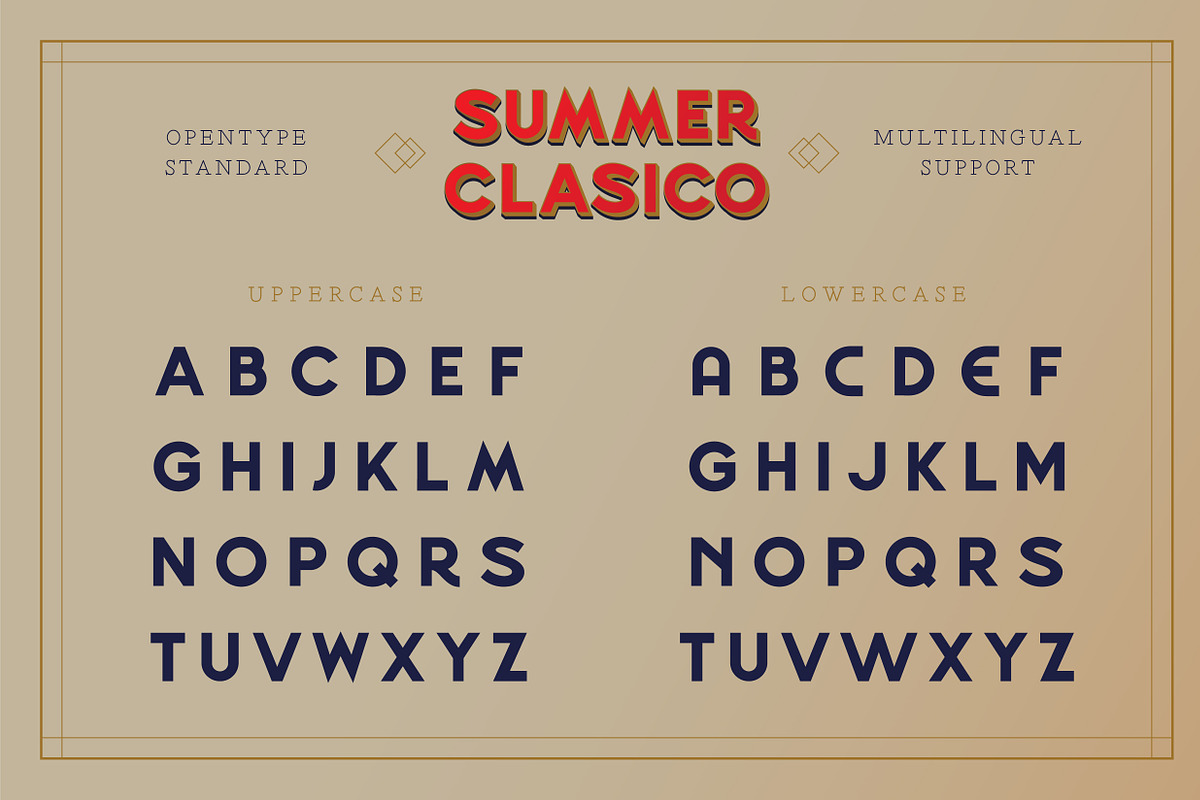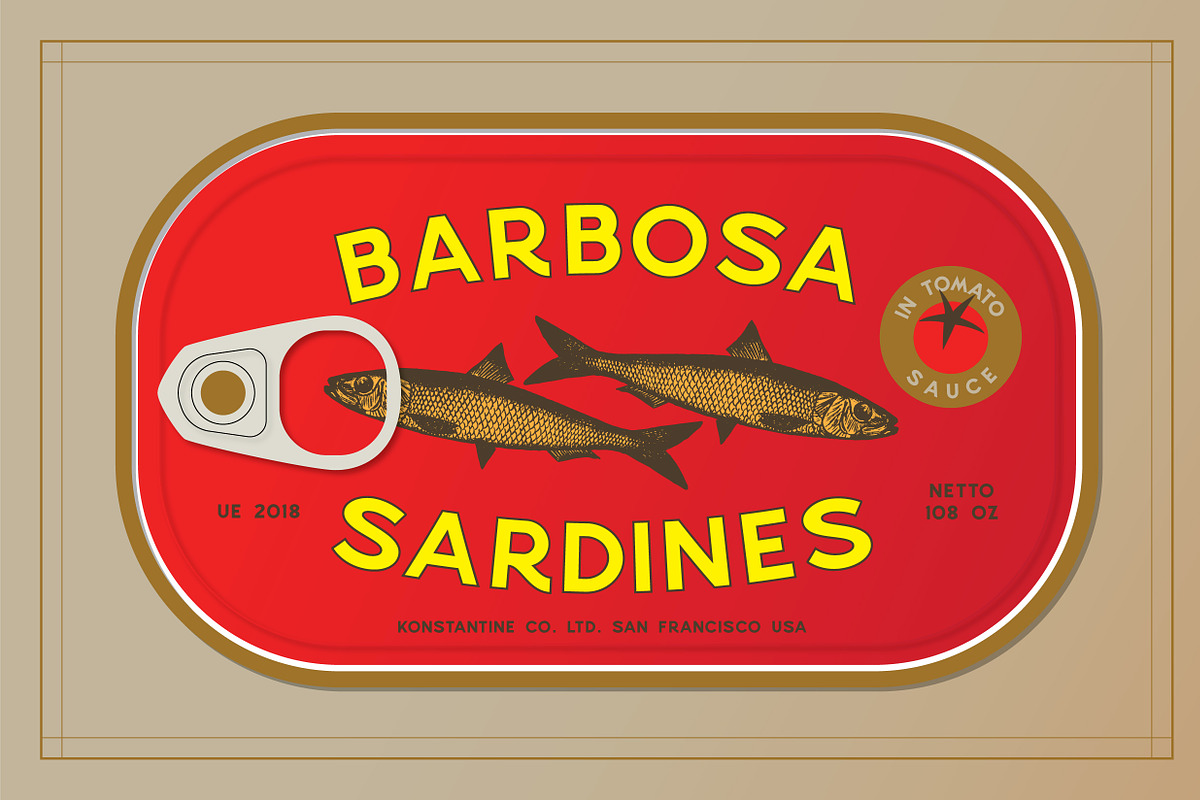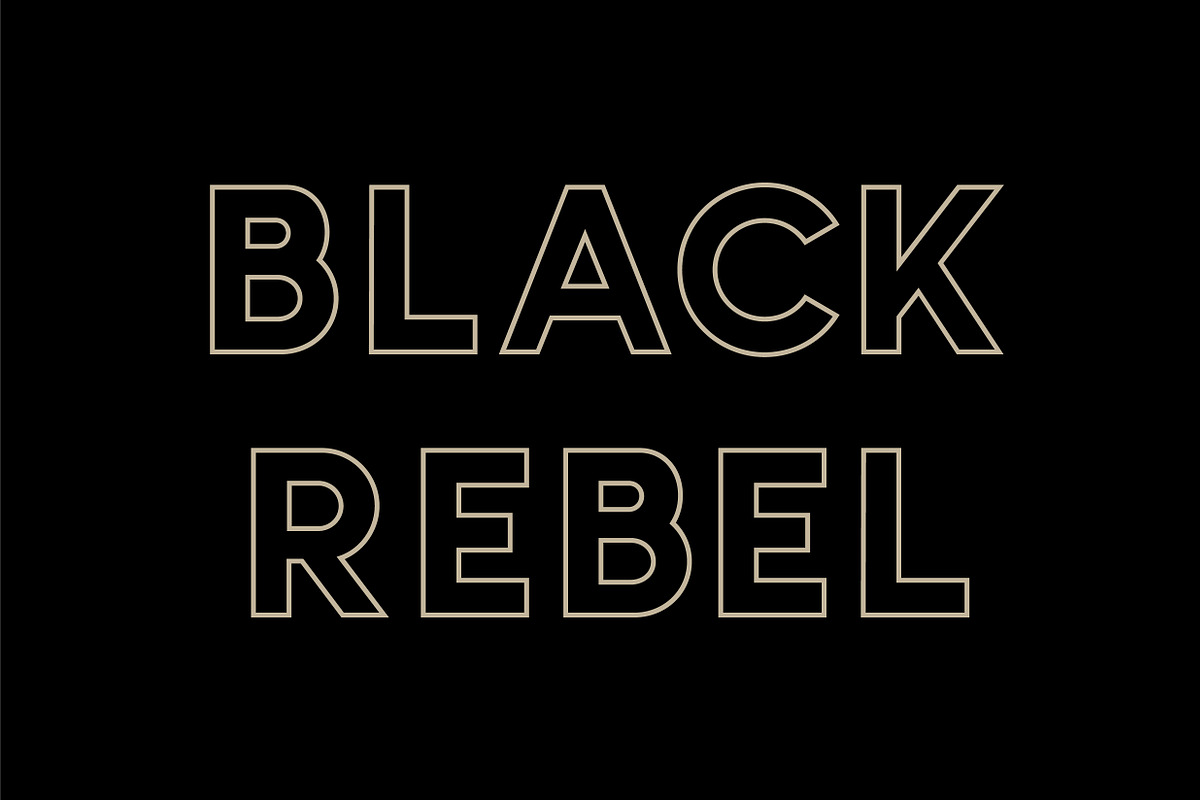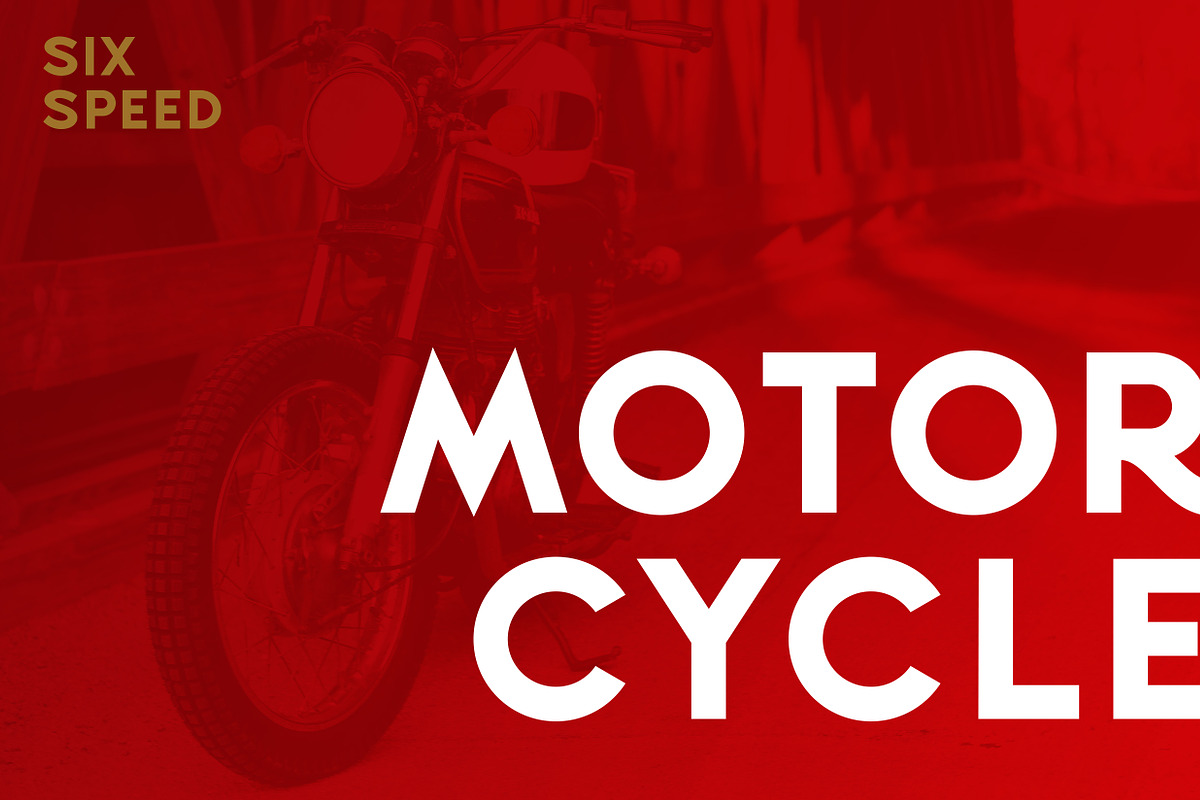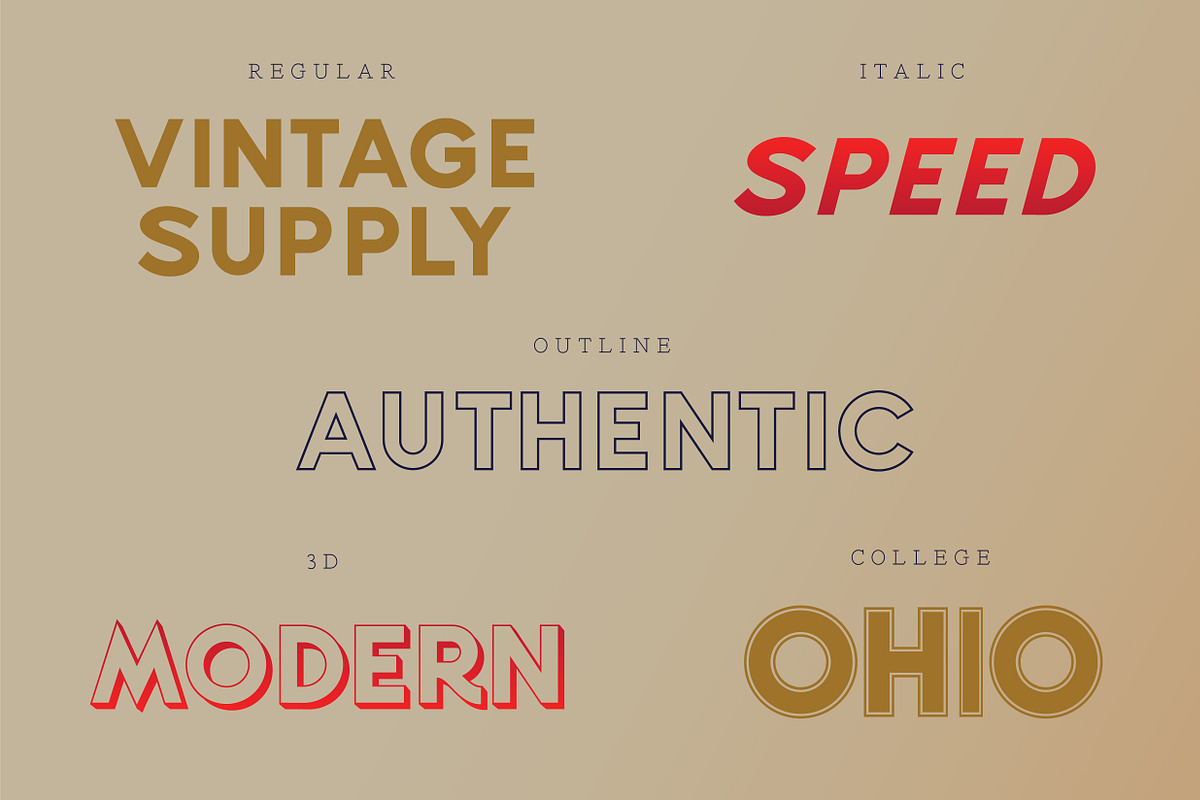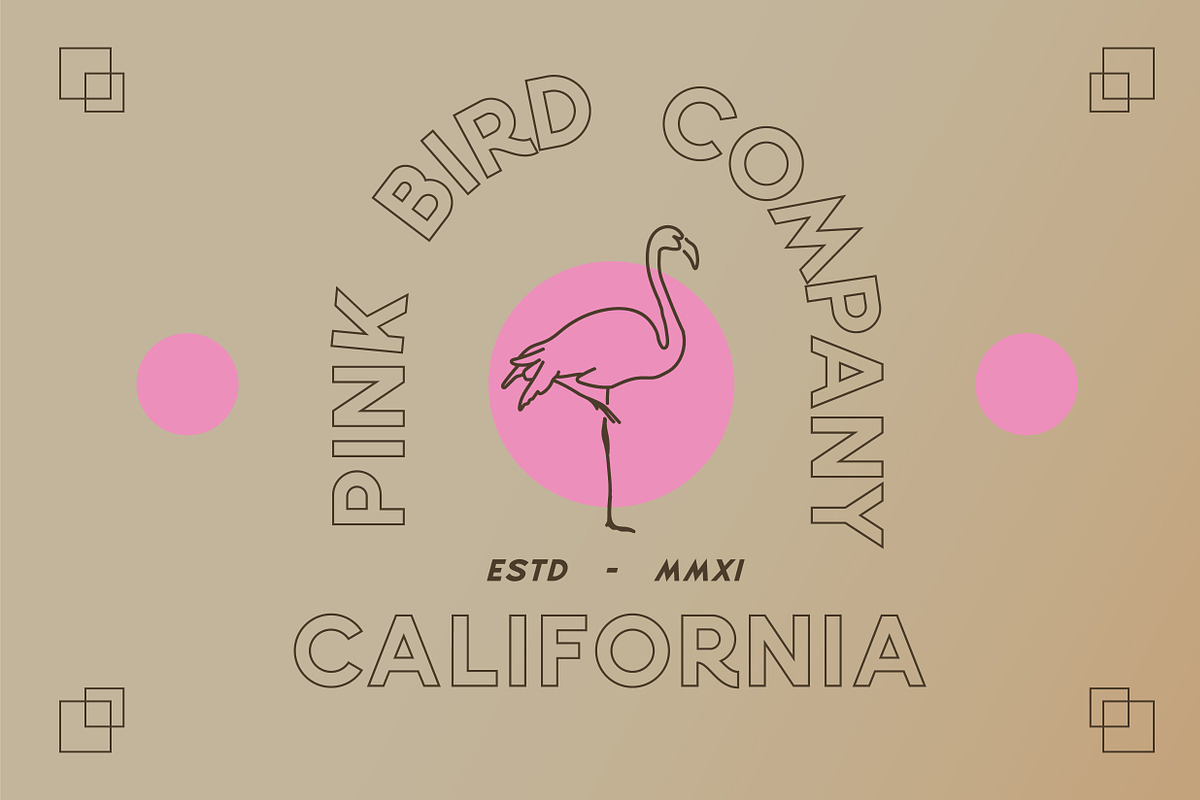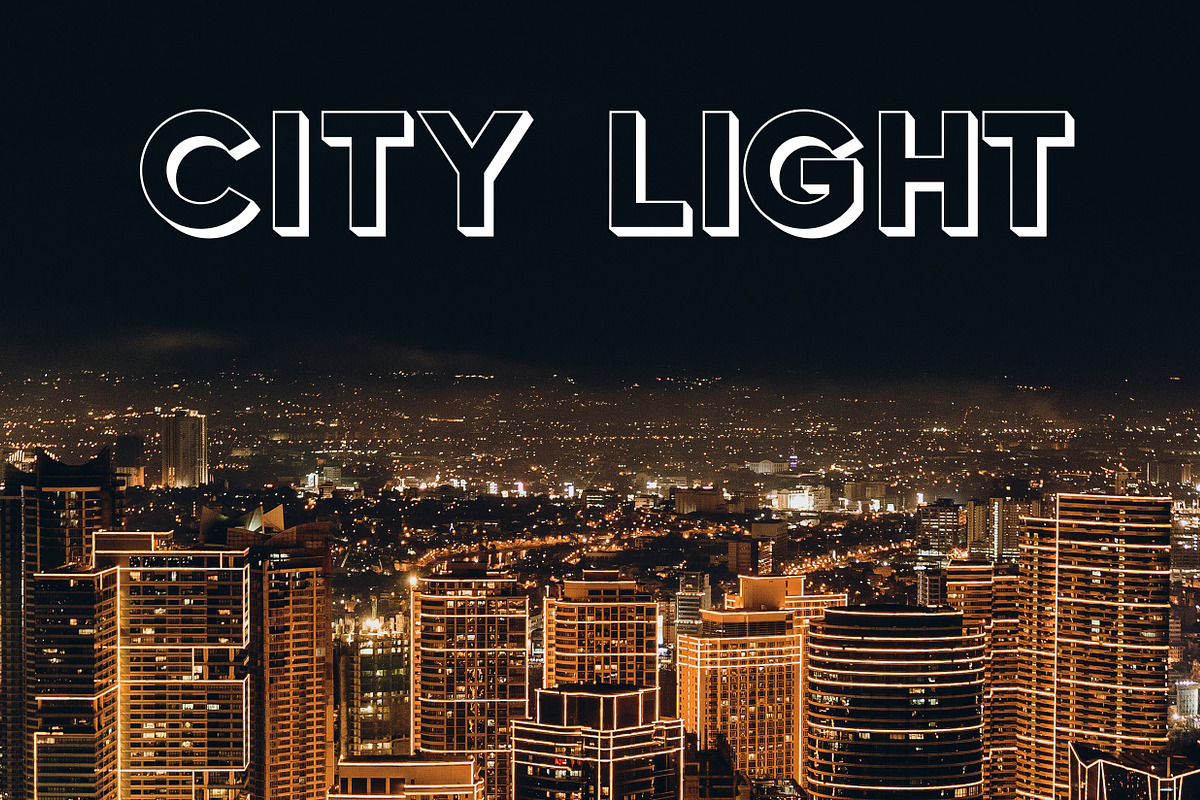
SUMMER CLASICO - Vintage Font
Referred to the graphic design trends nowadays that seems like slowly backwards into the old era again and again. We came out with this concept for the new old school typeface to make a spot in your design arsenal once again.
Please welcome, Summer Clasico. A family of vintage display sans serif. Inspired by the old advertising, sign, label, and packaging from the early 19 century. Perfectly fit for your luxury vintage branding, coffee shop, organic beverages, classy restaurant menu, etc. Instant jump to the grandpa's day for the old time sake.
Summer Clasico Regular
Summer Clasico Italic
Summer Clasico Outline
Summer Clasico College